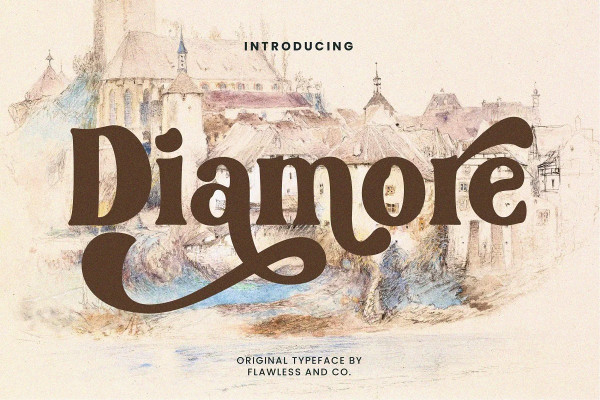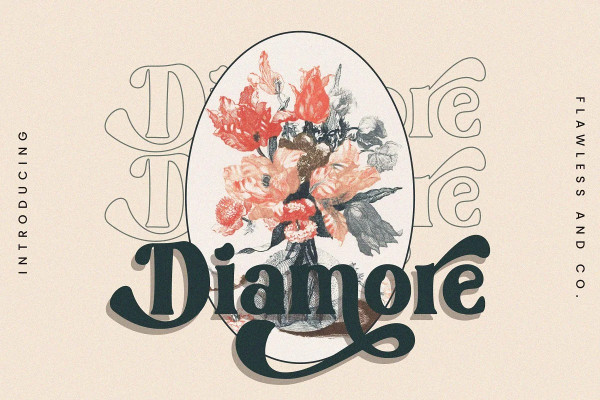
Diamore Font
Diamore Font is a gorgeous and elegant display font. Stylish, elegant, and chic, this font is guaranteed to add a special romantic touch to any design you wish to create!